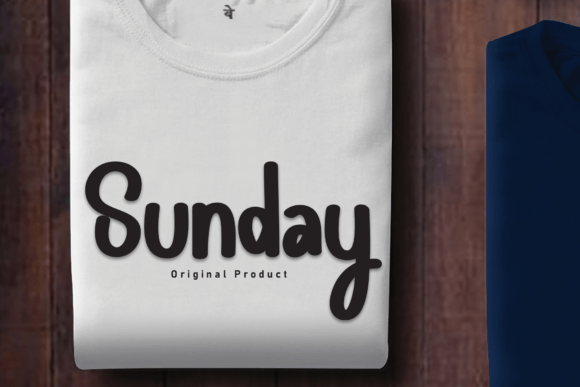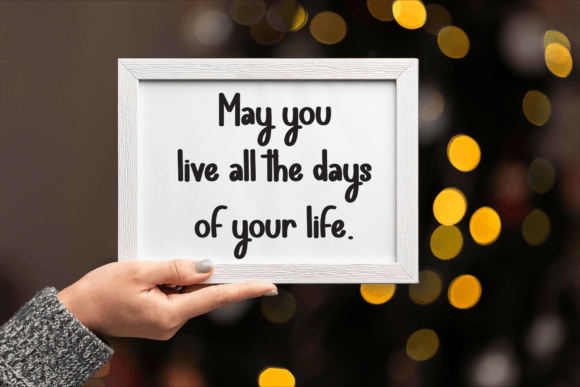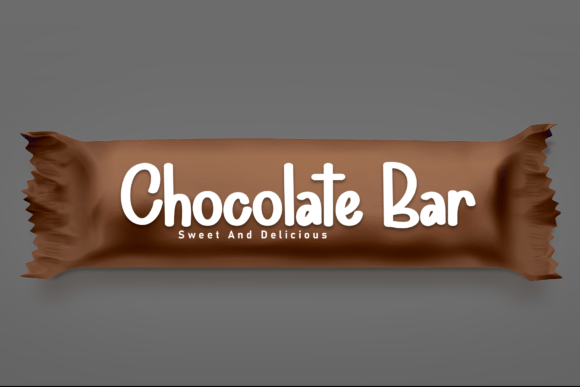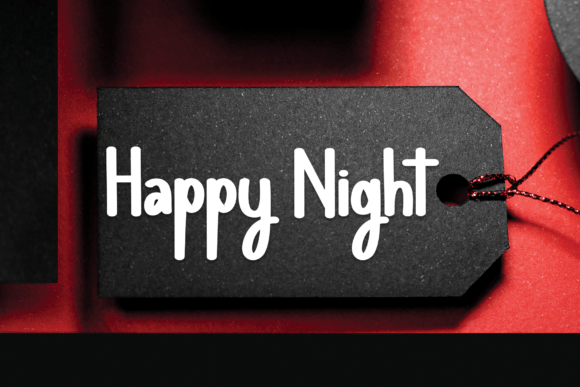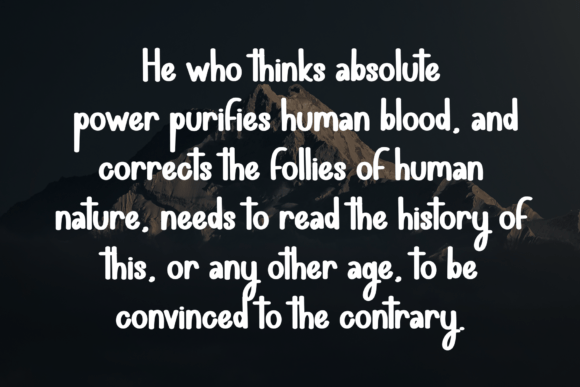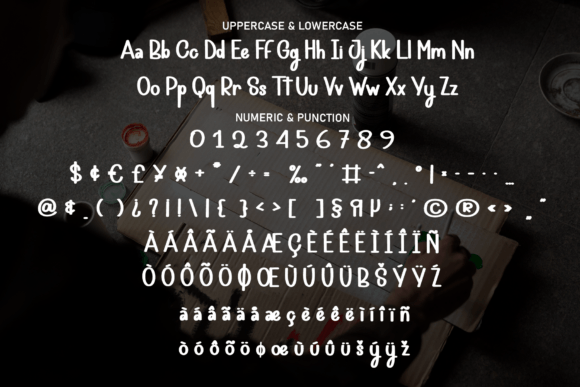
Introducing Blacklist Font: The Ultimate Handwritten Display Typeface for Whimsical Designs
Are you tired of using the same old boring fonts for your creative projects? Look no further! We’re excited to introduce Blacklist Font, a charming and delightful handwritten display typeface that’s sure to bring a smile to your face. With its adorable, quirky design, this font is perfect for adding a touch of friendliness and fun to your designs.
The Perfect Font for Personalized Wedding Invitations and Greeting Cards
Blacklist Font is an excellent choice for personalizing your wedding invitations, greeting cards, and other special occasion designs. Its whimsical and playful design adds an endearing touch that’s sure to make your loved ones feel special. Whether you’re a designer, crafter, or DIY enthusiast, this font is sure to inspire your creativity and help you create unique and memorable designs.
Give Your Design an Uplifting and Fun Energy
With Blacklist Font, you can instantly give your design an uplifting and fun energy that’s sure to set a joyful mood. This playful font is perfect for creative projects that require a lighthearted and carefree touch, such as:
- Blog headers and titles
Key Features of Blacklist Font
So, what makes Blacklist Font so special? Here are some of its key features:
- Handwritten design: Blacklist Font features a beautiful, handwritten design that’s full of character and personality.
- Quirky and playful: This font is perfect for designs that require a touch of whimsy and playfulness.
- Adorable and charming: Blacklist Font is sure to add a touch of charm and endearment to your designs.
- Easy to read: Despite its playful design, Blacklist Font is easy to read and understand, making it perfect for body text and headlines.
- Versatile: This font is suitable for a wide range of creative projects, from digital designs to print materials.
Tips for Using Blacklist Font
Here are some tips for using Blacklist Font in your designs:
- Pair it with other fonts: Blacklist Font pairs well with other fonts, such as sans-serif fonts for a modern look or script fonts for a more elegant feel.
- Use it for headlines and titles: This font is perfect for headlines and titles, where you want to make a bold statement and grab attention.
- Add some color: Blacklist Font looks great with bright, bold colors that match its playful design.
- Experiment with sizes: Try using Blacklist Font in different sizes to create visual interest and hierarchy in your designs.
In conclusion, Blacklist Font is a charming and delightful handwritten display typeface that’s perfect for adding a touch of friendliness and fun to your designs. With its adorable, quirky design and versatile features, this font is sure to inspire your creativity and help you create unique and memorable designs. So, why wait? Download Blacklist Font today and start creating whimsical designs that bring a smile to people’s faces!
Whether you’re a designer, crafter, or DIY enthusiast, Blacklist Font is sure to become a favorite in your font collection. Its playful design and uplifting energy make it perfect for a wide range of creative projects, from wedding invitations and greeting cards to social media graphics and blog headers. So, go ahead and get creative with Blacklist Font – your designs will thank you!